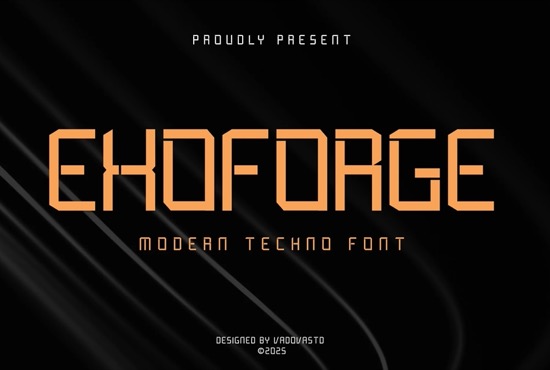
Exoforge Font
by Vadovastd
Exoforge is a very functional sans serif font with techno style, especially designed for contemporary projects. A futuristic techno font that combines angular geometry with a sleek, modern feel. Inspired by cyberpunk aesthetics, digital interfaces, and sci-fi environments, its precise letterforms and sharp angles create a strong sense of innovation and cutting-edge design. Ideal for tech branding, user interface design, video game titles, posters, and modern packaging, Exoforge offers a bold, high-tech feel. With its clean structure and commanding presence, this font is designed to elevate any project into the future.